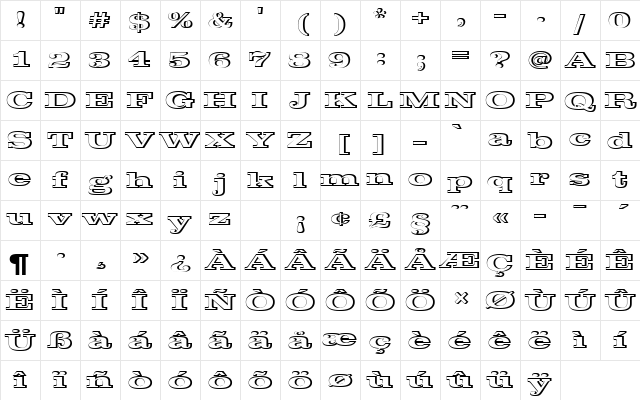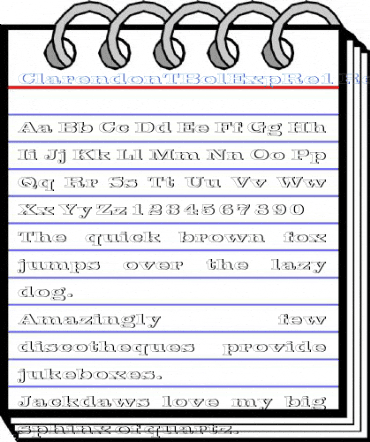
Complete ClarendonTBolExpRe1 Regular glyph index. Displaying only characters natively supported by ClarendonTBolExpRe1 Regular font.
ClarendonTBolExpRe1 features prominent, blocky serifs that give it a confident, grounded presence - equally at home in editorial settings and bold branding work.